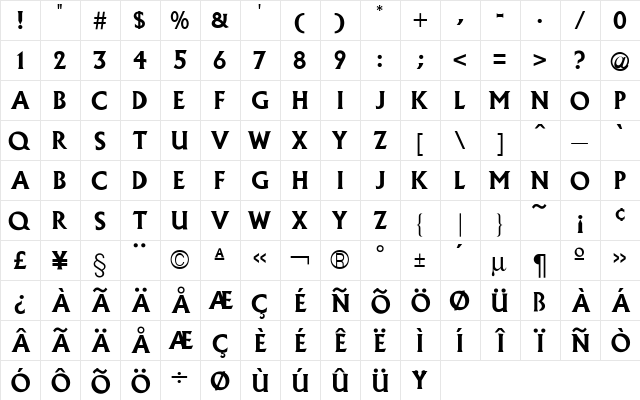
Albertus Bold
Design Context for Albertus Typeface
Albertus takes a measured approach to typography — its balanced proportions and neutral character make it a reliable workhorse for both digital and print work. Its bold stroke weight gives it real presence on the page.
Pro Tip: Pair Albertus with a font of contrasting weight or personality to build a more expressive typographic hierarchy.